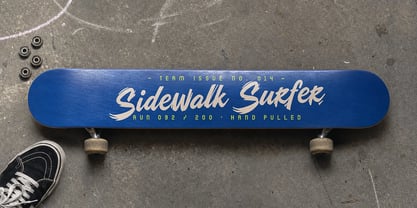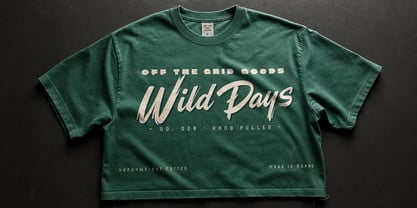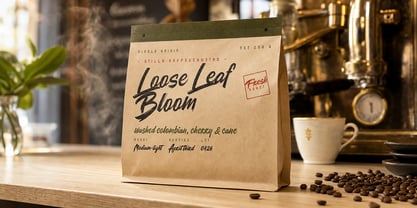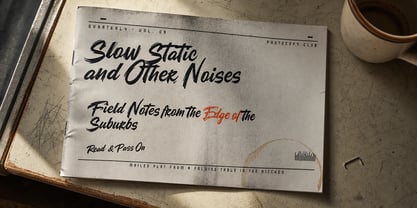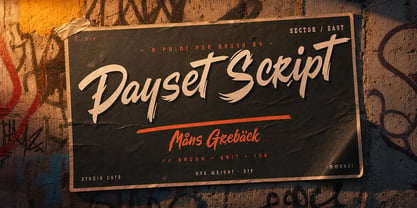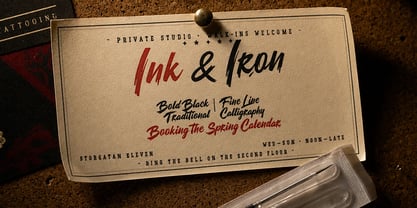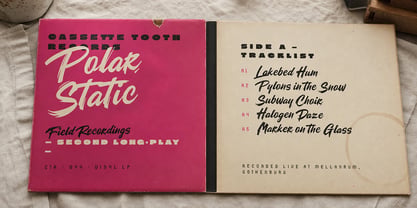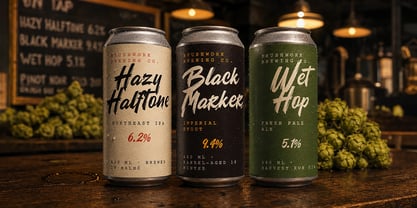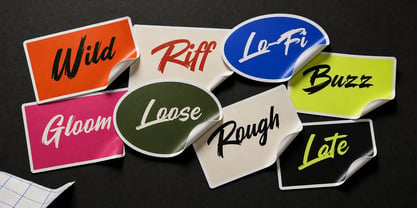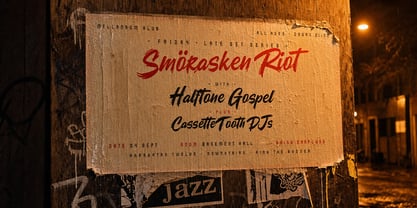
Dayset Script
Dayset Script is a rough urban brush face with paint-pen edges and an honest dirty texture.
Thick downstrokes break apart at the edges where the brush has skipped or run out of ink, with confident swashes that throw weight rightward. Lowercase reads fast and loose, and caps carry deliberate momentum. The glyphs keep their grit at any size.
Picture it sprayed across a brick wall under a railway bridge, or stamped onto the side of a craft-brewery can.
The font is built with advanced functionality and guaranteed top-notch quality, containing stylistic and contextual alternates, ligatures and more automatic and manual features; all to give you full control and customizability.
It has extensive lingual support, covering all Latin-based languages, from North Europa to South Africa, from America to South-East Asia. It contains all characters and symbols you'll ever need, including all punctuation and numbers.